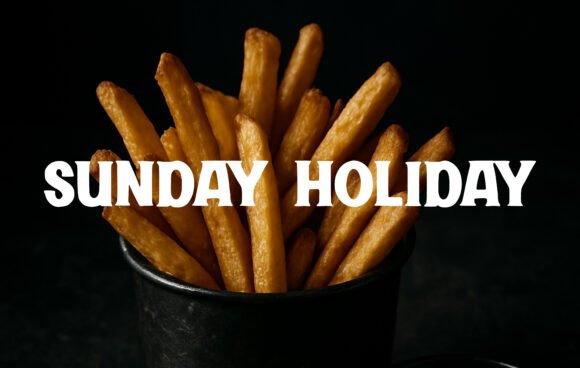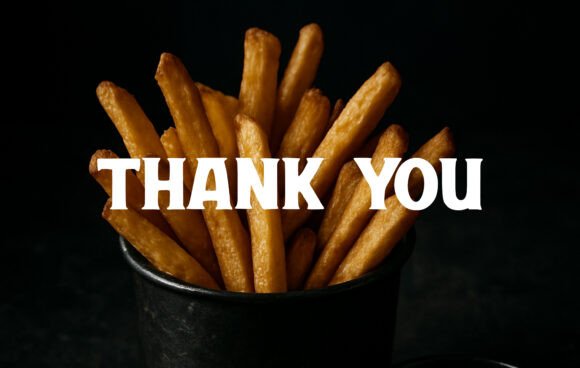
Introducing French Fries Font: The Bold and Assertive Typeface to Elevate Your Designs
Are you tired of using the same old fonts in your designs? Look no further! French Fries Font is here to revolutionize your typography with its bold and assertive style. This incredible font is perfect for designers, crafters, and anyone looking to add a touch of personality to their creations. In this article, we’ll dive into the world of French Fries Font, exploring its features, benefits, and uses.
A Bold and Assertive Font for Any Project
French Fries Font is a bold and assertive typeface that makes a statement. Its unique design ensures that your text stands out from the crowd, grabbing the attention of your audience. Whether you’re working on a logo, poster, or social media graphic, this font is sure to elevate your design. Its versatility allows it to be used across various industries and topics, making it an excellent addition to your font library.
Key Features of French Fries Font
- Bold and Assertive: French Fries Font is designed to make a statement. Its bold and assertive style ensures that your text stands out.
- Versatile: This font can be used across various industries and topics, making it a valuable asset to your font library.
- Unique Design: French Fries Font has a unique design that sets it apart from other fonts.
- Easily Readable: Despite its bold style, French Fries Font is easily readable, making it perfect for body text and headings.
Benefits of Using French Fries Font
So, why should you choose French Fries Font for your designs? Here are just a few benefits:
- Adds Personality: French Fries Font adds a touch of personality to your designs, setting them apart from the crowd.
- Grabs Attention: The bold and assertive style of French Fries Font grabs the attention of your audience, ensuring your message is seen.
- Elevates Your Brand: Using French Fries Font can help elevate your brand, making it more recognizable and memorable.
- Time-Saving: With French Fries Font, you can create stunning designs in no time, saving you time and effort.
Uses of French Fries Font
French Fries Font is perfect for a wide range of design projects, including:
- Logos: Create a bold and memorable logo with French Fries Font.
- Posters: Make a statement with your posters using French Fries Font.
- Social Media Graphics: Elevate your social media graphics with French Fries Font.
- Headings and Titles: Use French Fries Font for headings and titles to add a touch of personality.
Tips for Using French Fries Font
Here are a few tips for using French Fries Font:
- Use it Sparingly: Use French Fries Font sparingly to make a bigger impact.
- Pair it with Other Fonts: Pair French Fries Font with other fonts to create a unique and visually appealing design.